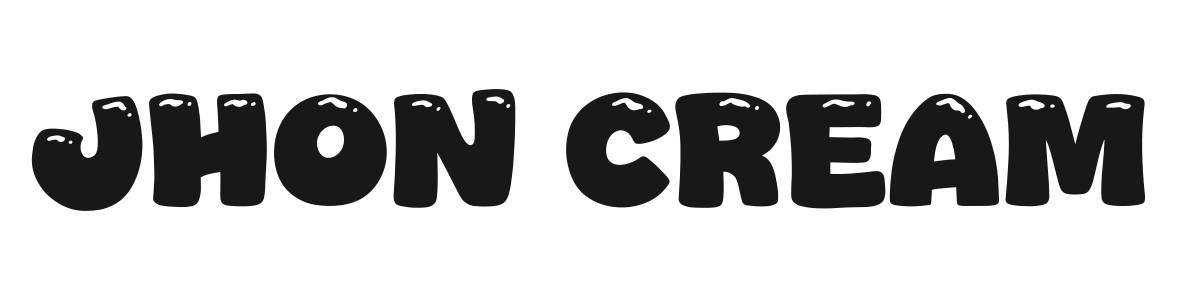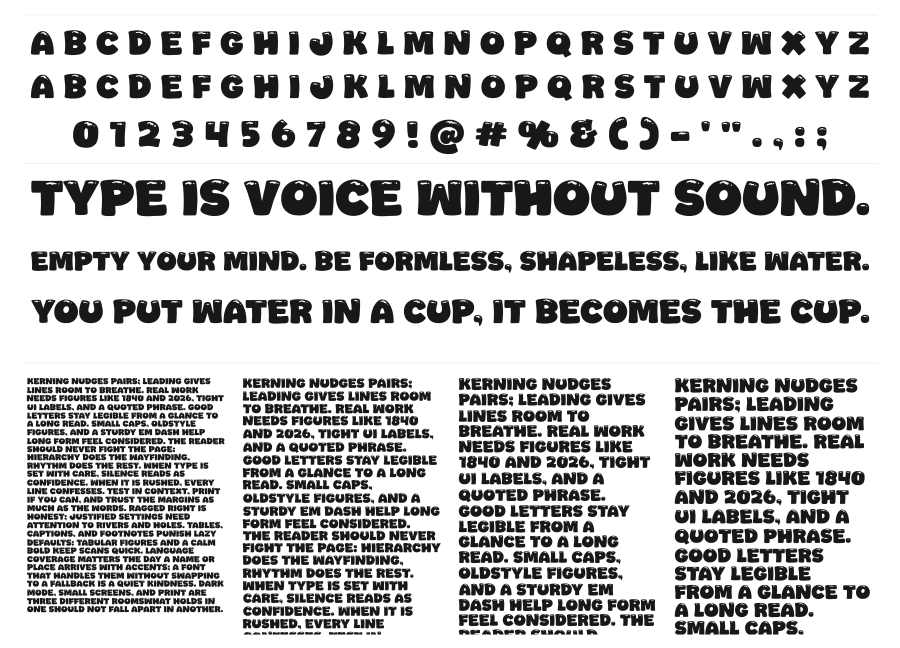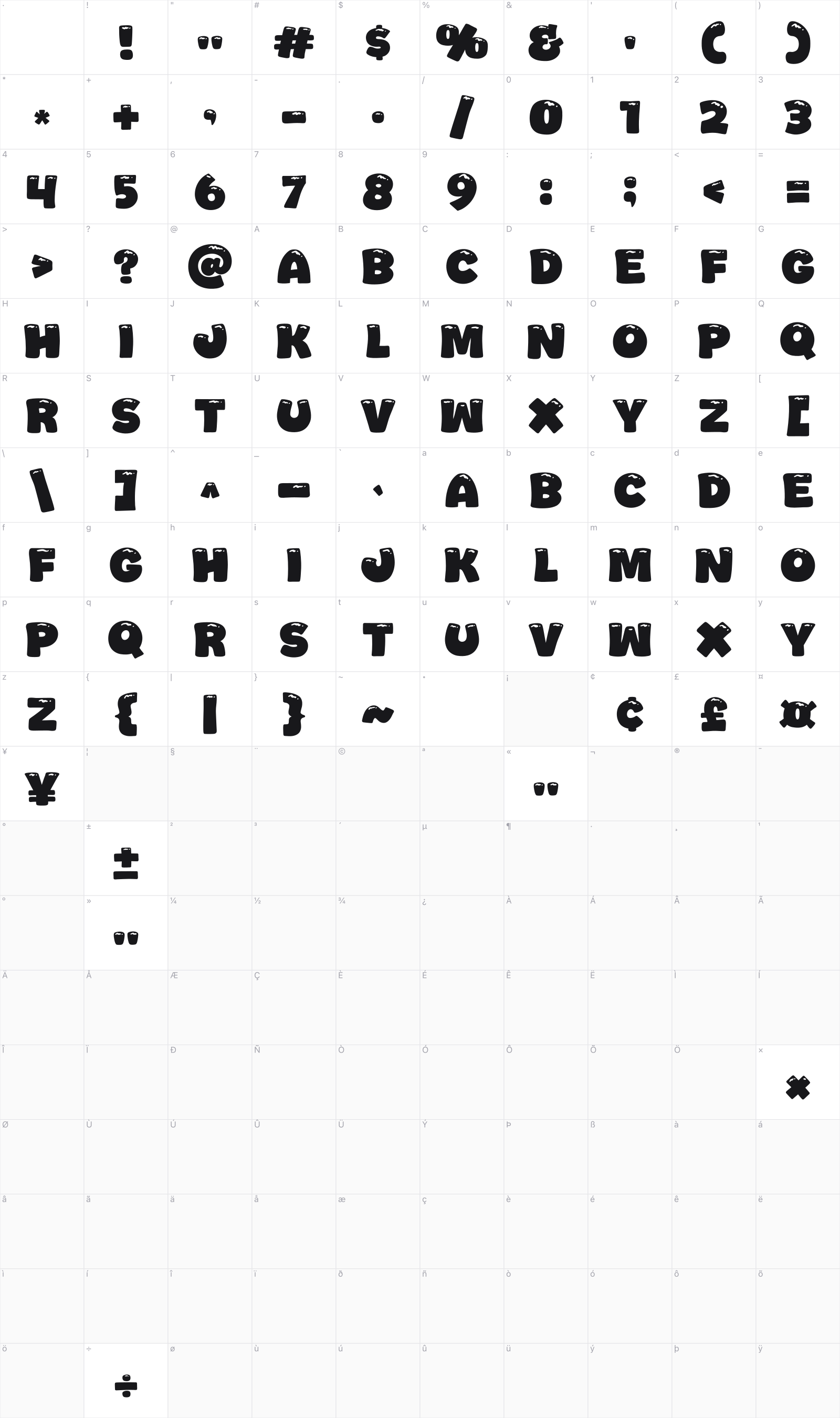
Jhon Cream
Jhon Cream is a heavy, rounded display font whose letters look like they were piped from a pastry bag or pressed from soft dough. Each character carries subtle surface indentations that give it a tactile, almost edible texture. It brings immediate playfulness to food packaging, comic headlines, and entertainment branding.